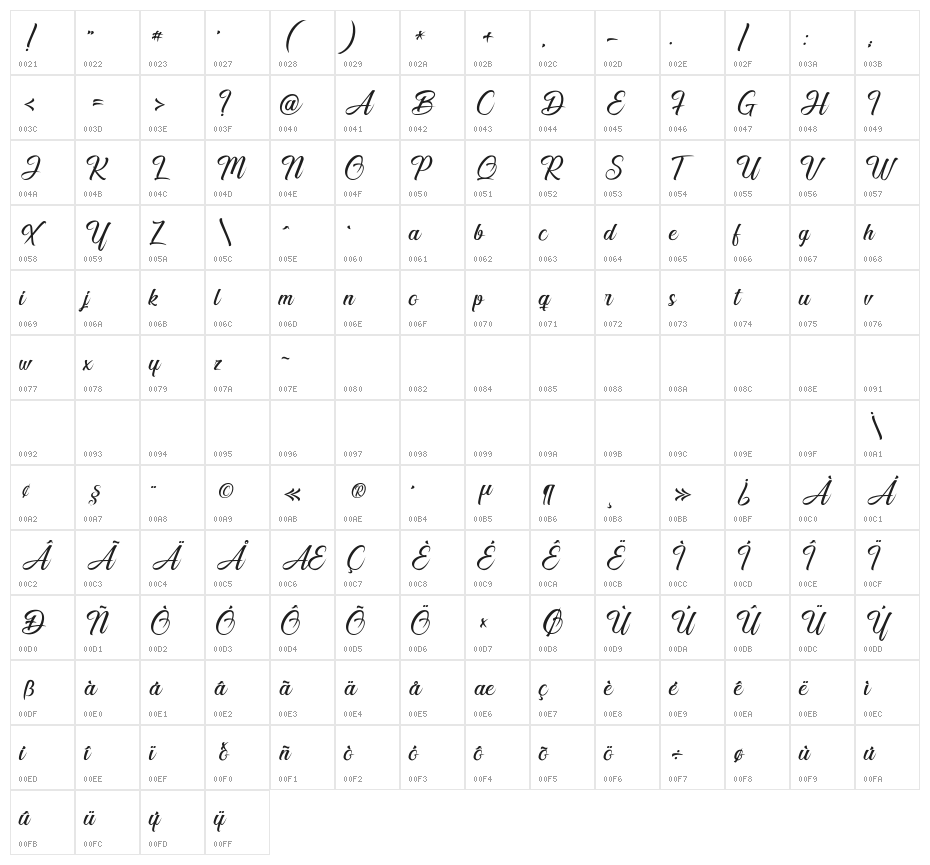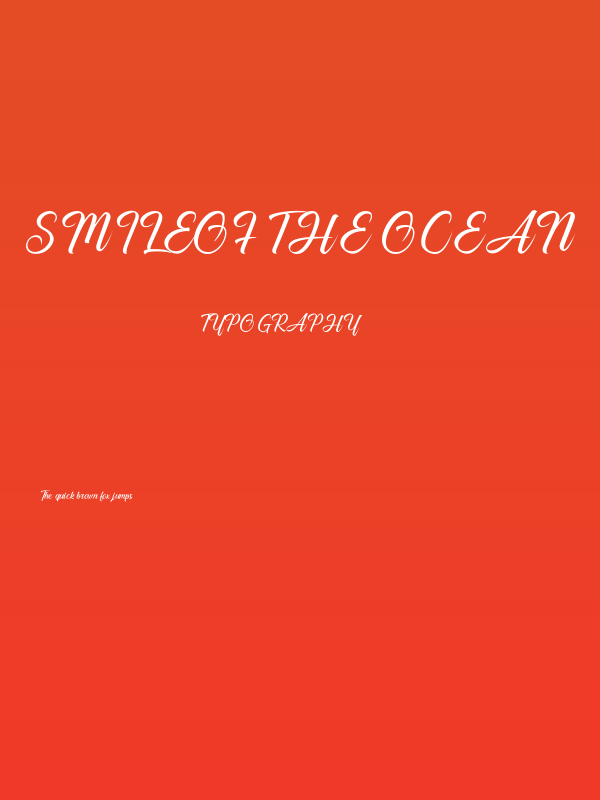
Smileof the Ocean Font
Smileof the Ocean Description
This elegant script font features a flowing, cursive style with a sense of movement and grace. The characters are connected, creating a seamless and fluid appearance. The uppercase letters are slightly more ornate, with flourishes that add a touch of sophistication. The lowercase letters maintain a consistent rhythm, enhancing readability while preserving the font's decorative nature. The numbers and special characters are designed to match the overall aesthetic, ensuring a cohesive look across all text elements. This font is ideal for projects that require a touch of elegance and personality.
| Overall Style | Elegant, Decorative |
| Use Case | Headlines, Invitations, Branding |
| Proposed Projects | Ideal for wedding invitations, greeting cards, elegant branding, and decorative headlines. |